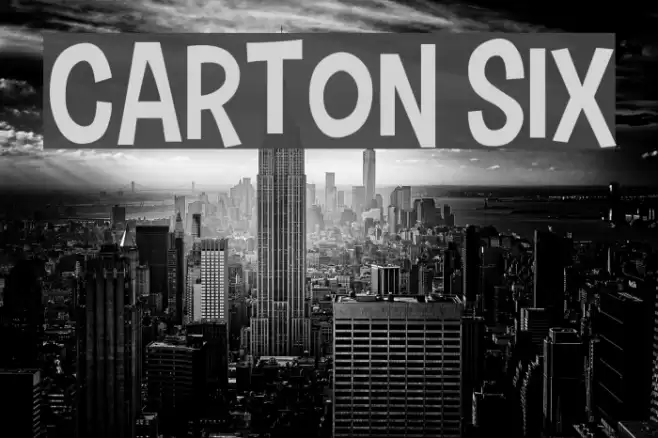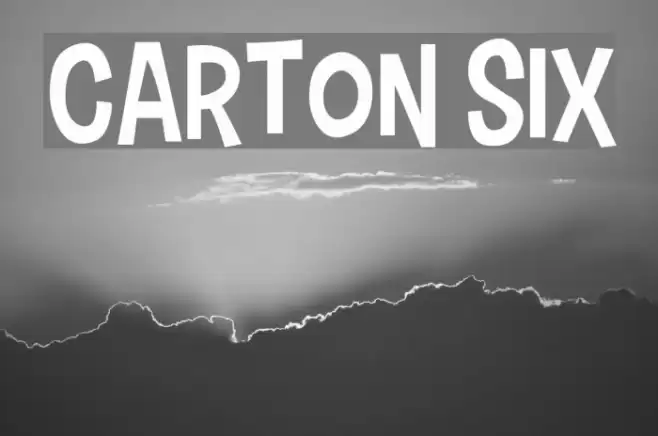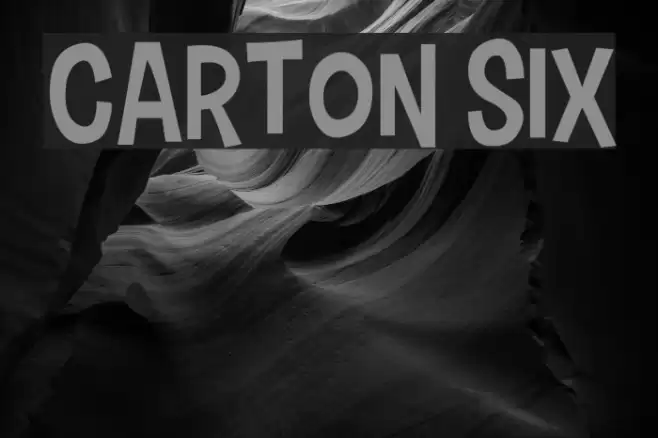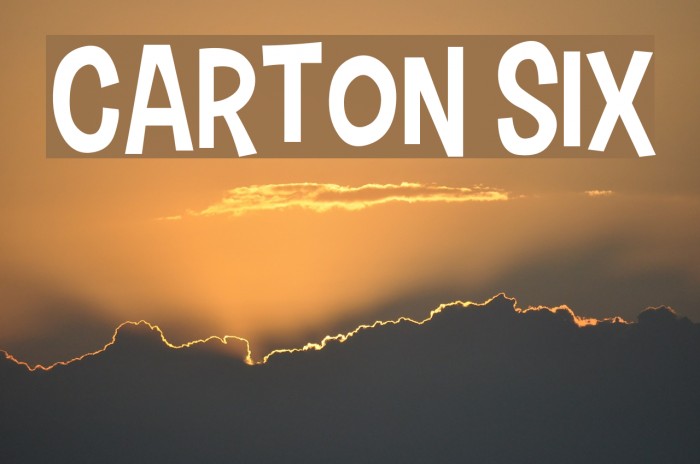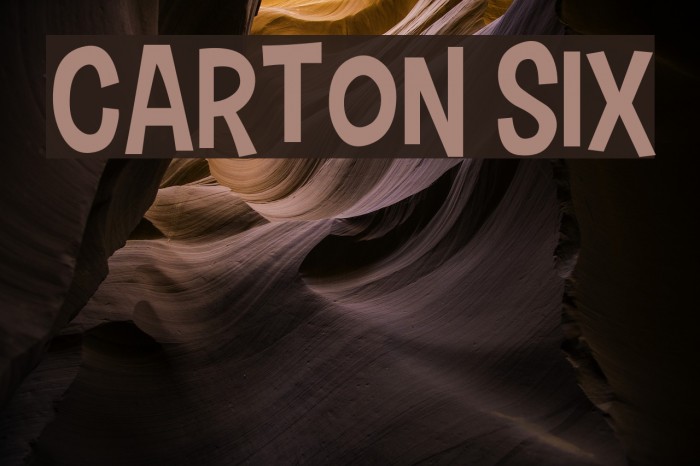
Carton Six Font
Carton Six Description
This font features bold, uppercase and lowercase letters with a strong, impactful presence. The characters are designed with a uniform stroke width, contributing to a clean and modern appearance. The letters are slightly condensed, enhancing their boldness and making them suitable for attention-grabbing headlines. The numbers and special characters maintain the same bold style, ensuring consistency across all text elements. The overall design is straightforward and functional, making it versatile for various applications.
A bold, modern font with uniform stroke width and slightly condensed characters from Uncategorized fonts.
- Proposed Projects: Ideal for posters, headlines, branding materials, and any project requiring a strong visual impact.